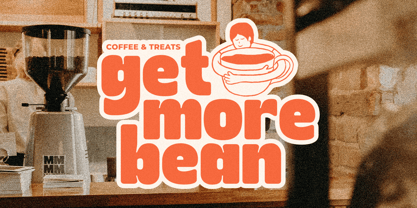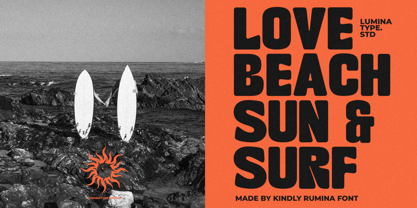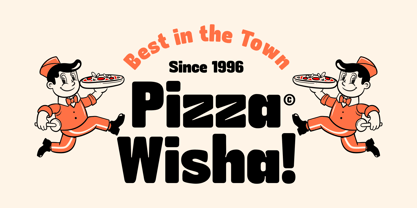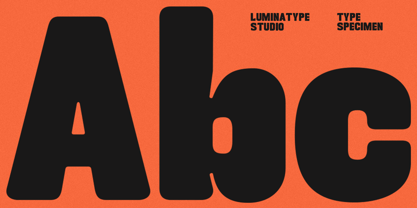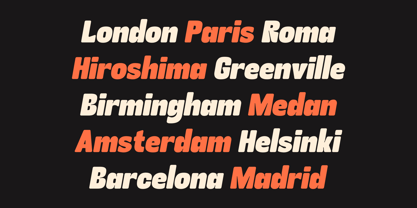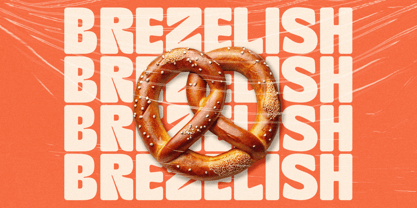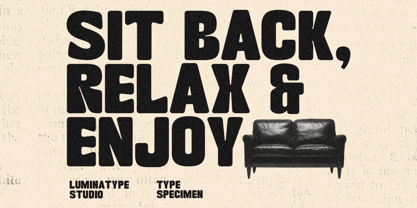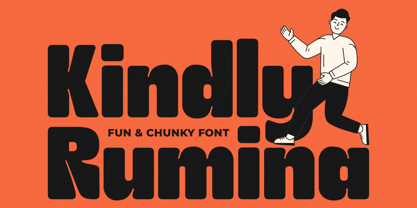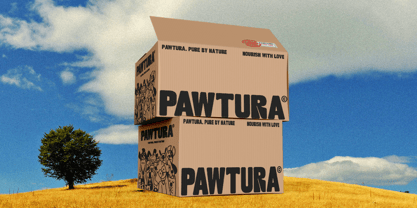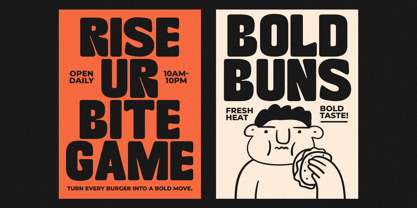
Kindly Rumina
by Luminatype Studio
The Kindly Rumina Font Family was designed by Bias Surya Buana and published by Luminatype Studio. Kindly Rumina contains 2 styles and family package options. More about this family
Experience the joy of design with Kindly Rumina Font by Lumina Type Studio. This contemporary fun and chunky display font is crafted to bring a unique flair to your creative projects. Accentuate your designs with this upbeat and robust typeface that easily captures attention while remaining versatile for a myriad of design needs. Discover the dynamism of Kindly Rumina Font, where modern aesthetics meet playful design.
Designers: Bias Surya Buana
Foundry: Luminatype Studio